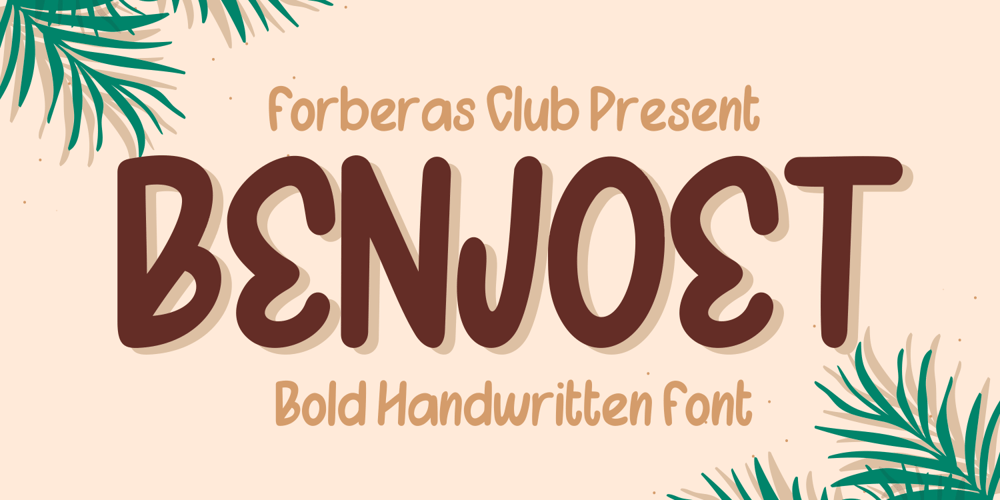
Benjoet
Benjoet font
Benjoet Font Family was designed by ANGGI HERMAWAN and published by Forberas Club. Benjoet contains 1 styles and family package options. Benjoet is a fun and whimsical paint brushed display font. This font is perfect for children themed designs, especially when combined with bright colors.